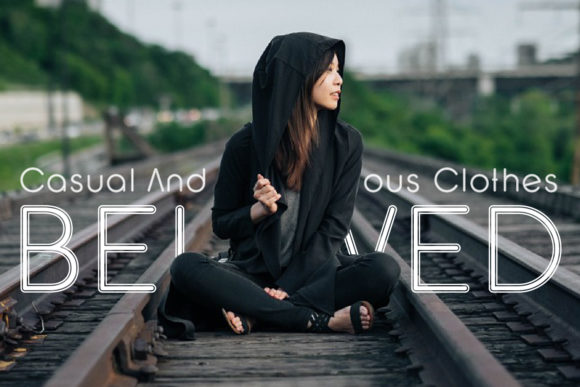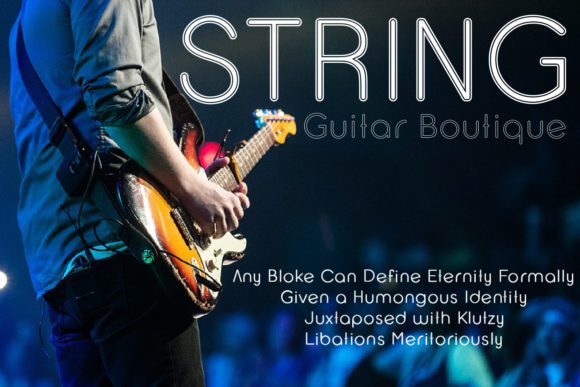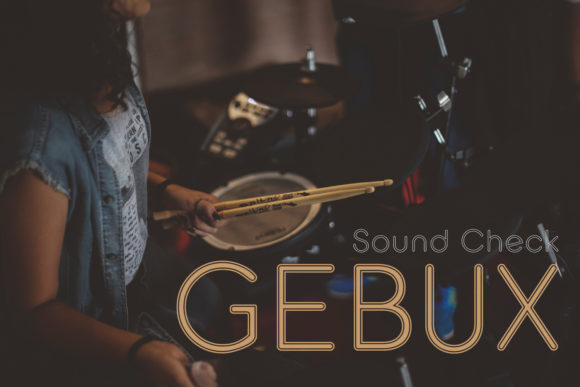
Introduction to Nano Font
Have you ever stared at a blank canvas, feeling the pressure to create something truly unique? That’s exactly where I was when I stumbled upon the Nano Font. It was one of those moments where everything came together – the perfect blend of creativity and design. The simplicity of the font caught my attention, and I knew I had to learn more about it.
Nano Font is a game-changer for designers, offering a high-quality sans serif font that’s free to download. With its transparent background and versatility, it’s a design resource that can be easily integrated into any creative project. Whether you’re working on a business card, a logo, or a digital brochure, Nano Font is sure to elevate your design and make it stand out.
Key Features of Nano Font
- High-quality, free font for creative projects, ideal for use in digital designs.
- Unique, modern design with a transparent background, perfect for overlays and graphics.
- Designed to be highly legible, even at small font sizes, making it ideal for use in digital signage and presentations.
- Includes 100 glyphs, covering a wide range of languages and characters, making it a versatile design resource.
Honest Review: Nano Font
I recently stumbled upon the Nano Font, a free download that caught my eye. As a designer, I’m always on the lookout for high-quality design resources that can elevate my creative project. And let me tell you, the Nano Font is a gem.
Here are some things that work well with the Nano Font:
- ✨ It’s incredibly versatile and can be used for a wide range of projects, from minimalist logos to complex UI designs.
- ✨ The font is highly customizable, with a range of weights and styles that can be easily adjusted to suit your design needs.
- ✨ The transparent background makes it easy to integrate into any design, without worrying about clashing colors.
- ⚠️ The font may not be suitable for very small text sizes, as it can become difficult to read.
- ⚠️ Some users may find the font’s design a bit too minimalist, which can make it hard to stand out in a crowded design space.
Overall, I’m really impressed with the Nano Font. It’s a high-quality design resource that’s perfect for designers looking to add a touch of sophistication to their creative project. With its transparent background and customizable options, it’s a must-have in any designer’s toolkit.
Nano Font
What is Nano Font?
Nano Font is a high-quality design resource ideal for creative projects that require a clean and minimalist aesthetic. Its transparent background makes it versatile for use in various applications, including digital design and print media.
Tips for Getting the Most Out of Nano Font
For optimal results, use Nano Font on a high-contrast background to ensure readability. You can also experiment with different font sizes and styles to achieve the desired effect.
Common Use Cases for Nano Font
Nano Font is ideal for use in:
- Websites and digital platforms
Alternatives to Nano Font
Comic Sans MS is a popular font designed by Vincent Connare in 1994. It’s ideal for creative projects requiring a playful, casual feel. The font has a transparent background, making it suitable for overlaying on images. Comic Sans MS is free to download and is widely supported across various platforms. It’s a great alternative to Nano Font for projects requiring a lighthearted tone.
Open Sans is a high-quality, open-source font designed by Steve Matteson in 2010. It’s a clean and modern sans-serif font perfect for a wide range of creative projects. Open Sans is available for free download and offers a transparent background, making it an excellent choice for designers. While it’s not as casual as Nano Font, Open Sans is more versatile and suitable for a variety of design resources.